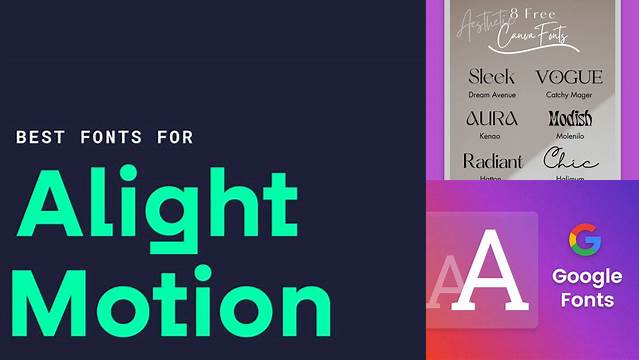
Stylish Fonts: Free Downloads For Video Editing
Hey guys! Ever feel like your awesome video is missing that final spark? You've got the killer footage, the perfect music, but the text just looks…blah? The right font can seriously transform your video from meh to amazing. Think of fonts as the voice of your visuals – they communicate tone, style, and personality. So, if you're on the hunt for fonts that will make your videos pop, you've come to the right place! Let's dive into the world of stylish fonts for video editing, with a focus on where to find those sweet free downloads to give your projects that professional edge. We'll explore different font styles, discuss what makes a font work well in video, and point you towards some fantastic resources for snagging those perfect typefaces without breaking the bank. Ready to level up your video editing game? Let's get started!
Why Fonts Matter in Video Editing
Alright, so why are we even talking about fonts? Isn't video all about the visuals? Well, yes and no. Think about any professional video you've seen, whether it's a blockbuster movie trailer, a slick YouTube tutorial, or a captivating documentary. The text plays a crucial role in conveying information, setting the mood, and reinforcing the overall message. Choosing the right font can be the difference between a polished, professional video and something that looks amateurish and distracting. Fonts are more than just letters; they're a visual element that contributes to the storytelling process. Imagine a horror movie using a bubbly, playful font for its title sequence – it just wouldn't work, would it? Or a serious documentary using a Comic Sans-esque font for its captions? Cringe! The right font will seamlessly integrate with your video's aesthetic, while the wrong font will stick out like a sore thumb. Fonts communicate tone: A bold, sans-serif font can convey a sense of modernity and strength, while a flowing script font might evoke elegance and sophistication. Fonts enhance readability: In video, you need fonts that are clear and easy to read, even at smaller sizes or when displayed over moving backgrounds. Fonts reinforce branding: If you're creating videos for your business or personal brand, using consistent fonts across all your content will help build brand recognition. It's about creating a cohesive visual identity that viewers will instantly associate with you. So, the next time you're editing a video, don't just grab the first font that comes to mind. Take the time to consider the message you're trying to convey, the overall style of your video, and the audience you're trying to reach. Your font choices can make a world of difference!
Key Considerations When Choosing Fonts for Video
Okay, guys, now that we know why fonts are so important, let's talk about how to choose the right ones for your videos. It's not just about picking a font that looks cool; there are some practical considerations to keep in mind to ensure your text is both stylish and effective. Here are some key factors to think about: Readability is King: This is the golden rule of typography for video. No matter how fancy or stylish a font looks, if it's difficult to read on screen, it's a no-go. Remember, your viewers only have a few seconds to process the text, so clarity is essential. Look for fonts with clean lines, good spacing, and sufficient contrast between the text and the background. Avoid overly ornate or decorative fonts, especially for smaller text like captions or lower thirds. Consider the Context: The font you choose should complement the style and tone of your video. A playful, handwritten font might be perfect for a vlog or a children's video, but it wouldn't be appropriate for a corporate presentation or a serious documentary. Think about the overall mood you're trying to create and choose fonts that align with that aesthetic. Are you going for modern and minimalist? Classic and elegant? Bold and energetic? Your font choices should reflect that. Font Pairing is an Art: Using multiple fonts in a video can add visual interest, but it's crucial to do it right. Font pairing is the art of combining different fonts that work well together. A general rule of thumb is to stick to two or three fonts maximum and to choose fonts that contrast each other in a pleasing way. For example, you might pair a bold sans-serif font for headlines with a more delicate serif font for body text. There are tons of resources online that offer font pairing suggestions, so don't be afraid to do some research. Test, Test, Test: Before you finalize your font choices, always test them out in your video editing software. See how they look at different sizes, against different backgrounds, and with any visual effects you're using. What looks great in a static image might not work so well in motion. Pay attention to things like letter spacing, kerning (the space between individual letters), and leading (the space between lines of text). These subtle details can have a big impact on readability. Legibility Across Devices: Remember that your videos might be viewed on a variety of devices, from large desktop monitors to small smartphone screens. Make sure your fonts are legible on all these platforms. Some fonts that look crisp and clear on a computer screen might become blurry or pixelated on a mobile device. So, always test your videos on different devices to ensure a consistent viewing experience. By keeping these considerations in mind, you'll be well on your way to choosing fonts that not only look stylish but also enhance the overall impact of your videos.
Top Font Recommendations for Video Editing
Okay, guys, so we've talked about why fonts matter and where to find them. Now, let's get down to the nitty-gritty and discuss some specific font recommendations that work particularly well in video editing. I've broken these down into categories to help you find the perfect font for your project: Sans-Serif Fonts (Clean and Modern): Sans-serif fonts are characterized by their clean lines and lack of serifs (the little decorative strokes at the end of letters). They tend to convey a sense of modernity, simplicity, and professionalism, making them a great choice for a wide range of video projects. * Montserrat: A super popular and versatile sans-serif font that's perfect for headlines, body text, and captions. It's clean, modern, and highly readable. * Open Sans: Another excellent sans-serif option that's known for its clarity and legibility. It's a great choice for longer blocks of text, such as descriptions or subtitles. * Lato: A stylish and modern sans-serif font that's slightly rounded, giving it a friendly and approachable feel. * Roboto: A widely used sans-serif font that's clean, geometric, and highly versatile. It's a great choice for a variety of applications, from websites to videos. * Poppins: A geometric sans-serif font with a clean and modern aesthetic. It's available in a wide range of weights, making it suitable for both headlines and body text. Serif Fonts (Classic and Elegant): Serif fonts have those little decorative strokes (serifs) at the end of letters. They tend to evoke a sense of tradition, elegance, and authority, making them a good choice for videos that require a more classic or sophisticated feel. * Playfair Display: A beautiful and elegant serif font that's perfect for headlines and titles. It has a slightly dramatic flair that adds a touch of sophistication to your videos. * Merriweather: A highly readable serif font that's well-suited for longer blocks of text, such as descriptions or articles. * Lora: A well-balanced serif font with roots in calligraphy. It has a contemporary feel while maintaining classic serif sensibilities. * Arvo: A slab-serif font (a type of serif font with thicker serifs) that's bold, modern, and highly readable. It's a great choice for headlines and titles. * Roboto Slab: The slab-serif sibling of the popular Roboto sans-serif font. It shares the same clean and modern aesthetic but with a more authoritative feel. Script and Handwritten Fonts (Personal and Creative): Script and handwritten fonts mimic the look of handwriting. They can add a personal, creative, and informal touch to your videos. However, it's important to use these fonts sparingly and to ensure they remain legible. * Pacifico: A fun and friendly script font that's perfect for casual videos, vlogs, or projects aimed at children. * Great Vibes: A beautiful and elegant script font that's ideal for wedding videos, invitations, or projects that require a touch of romance. * Amatic SC: A condensed handwritten font that's quirky and playful. It's a good choice for headlines or short bursts of text. * Permanent Marker: A bold and casual handwritten font that looks like it was written with a permanent marker. It's a great choice for adding a personal touch to your videos. * Caveat: A casual handwritten font that's easy to read and has a friendly, approachable feel. Tips for Using These Fonts in Video: * Pair a sans-serif font with a serif font: This is a classic font pairing strategy that works well in video. Use the sans-serif font for headlines and the serif font for body text. * Use script fonts sparingly: Script fonts can be beautiful, but they can also be difficult to read. Use them sparingly and make sure they're large enough to be easily legible. * Consider the background: Choose fonts that contrast well with the background of your video. If your background is busy or colorful, opt for a clean and simple font. * Test your fonts in your video editing software: Always test your font choices in your video editing software to see how they look in motion and at different sizes. By experimenting with these fonts and keeping these tips in mind, you'll be able to create videos that are both stylish and visually effective.
Final Thoughts: Level Up Your Videos with the Perfect Fonts
So, there you have it, guys! A comprehensive guide to finding and using stylish fonts for your video editing projects. We've covered why fonts matter, key considerations for choosing fonts, where to find free fonts, and some top font recommendations. The key takeaway here is that fonts are a powerful tool for enhancing the visual impact of your videos. They communicate tone, reinforce branding, and ensure your message is delivered effectively. By taking the time to choose the right fonts, you can elevate your videos from good to great. Remember, readability is paramount. Always prioritize fonts that are clear and easy to read, even at smaller sizes or against moving backgrounds. Consider the context of your video and choose fonts that align with the style and tone you're trying to create. Don't be afraid to experiment with different font pairings, but stick to a maximum of two or three fonts to avoid visual clutter. And, of course, always check the licensing before using a font in your project, especially for commercial purposes. With the wealth of free font resources available online, there's no excuse for settling for boring or generic fonts. Google Fonts, DaFont, Font Squirrel, Creative Market – these are just a few of the treasure troves waiting to be explored. So, go forth and discover the perfect typefaces to bring your video visions to life! And remember, choosing the right fonts is just one piece of the puzzle. Great video editing also involves things like pacing, music, color grading, and storytelling. But mastering the art of typography will undoubtedly give your videos that extra polish and professionalism that will make them stand out from the crowd. Now, go out there and create some amazing videos!